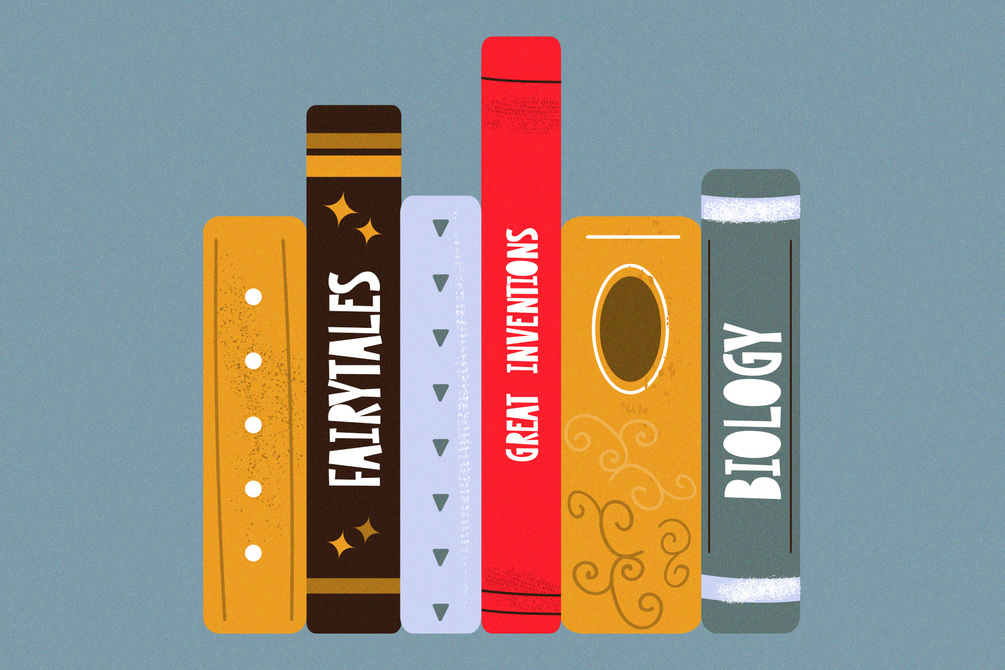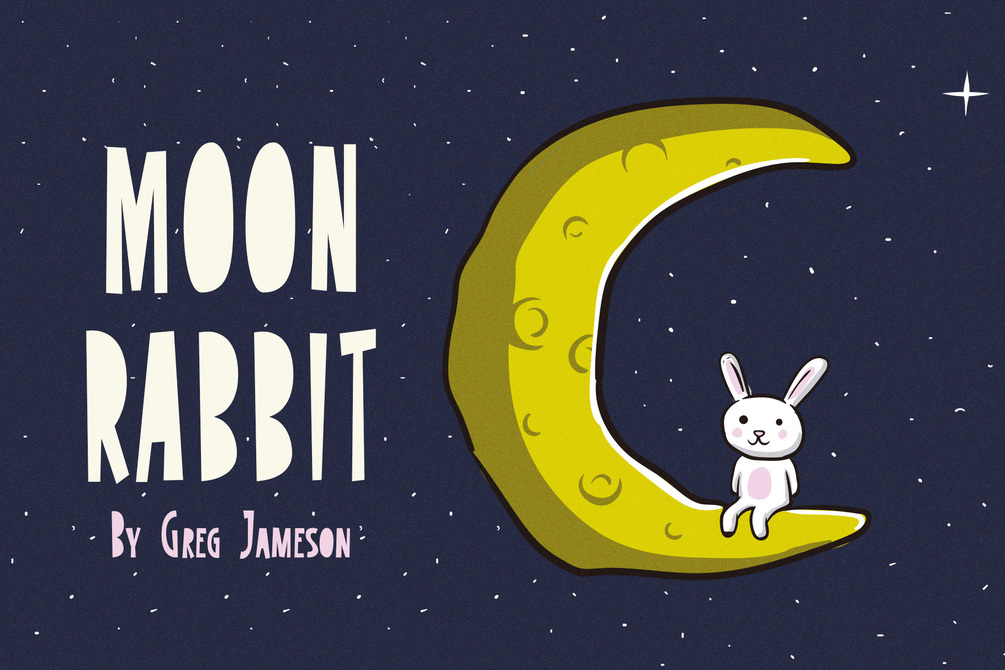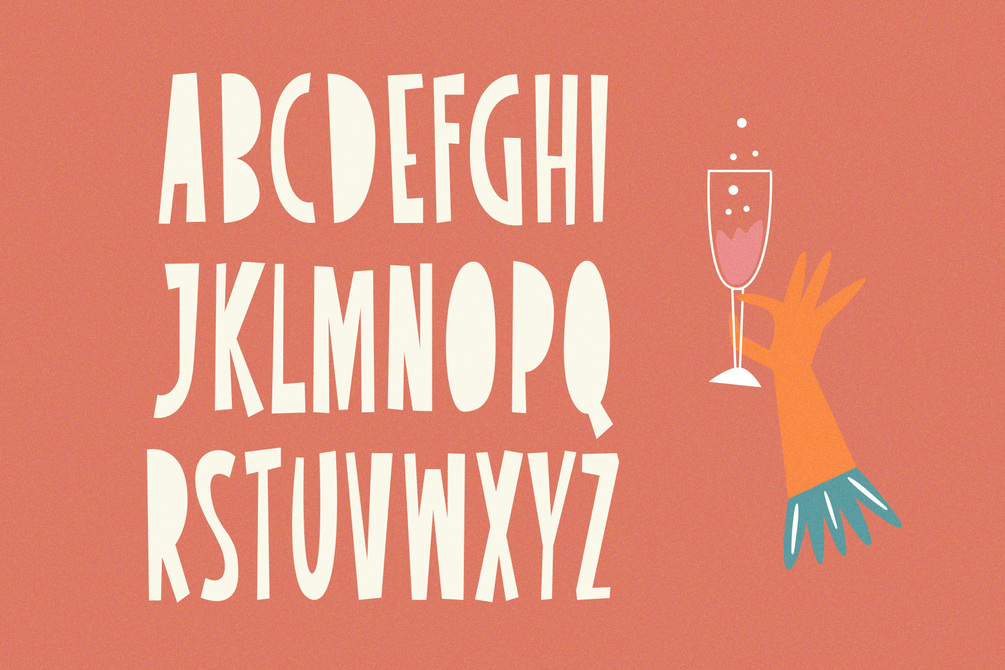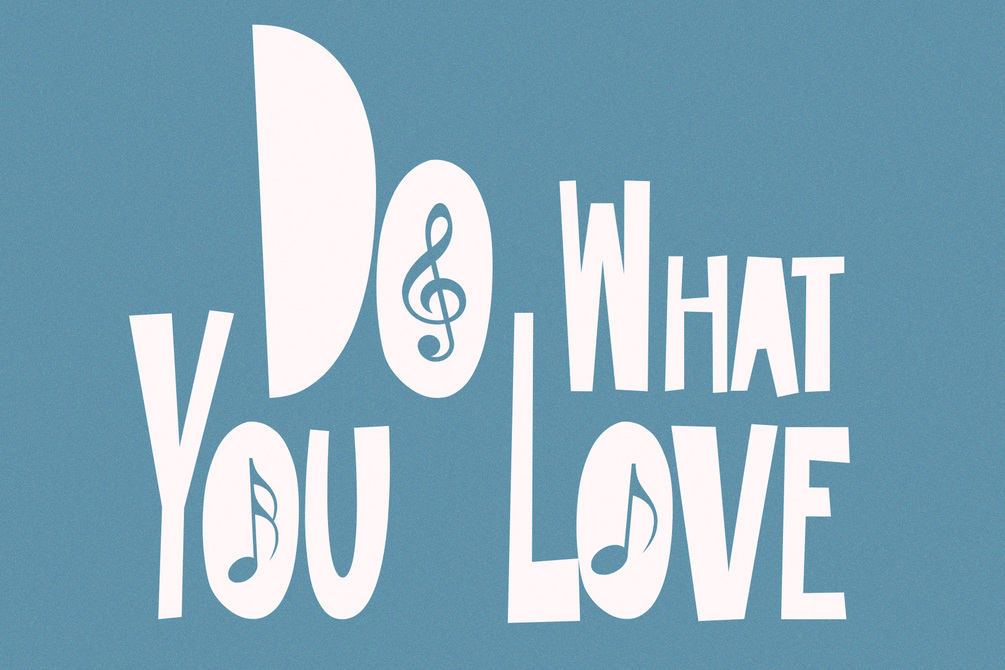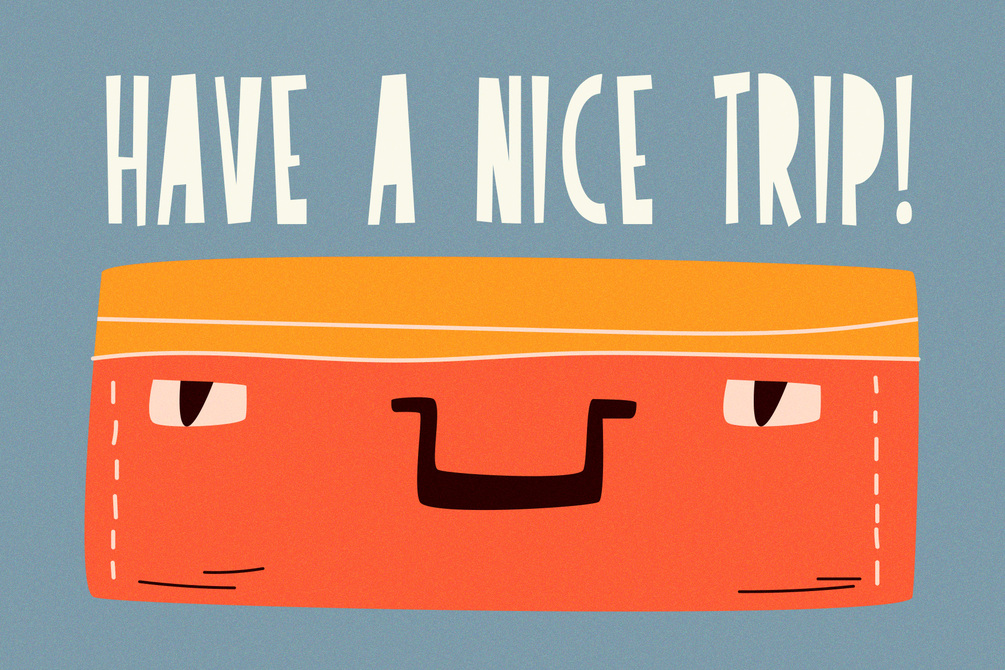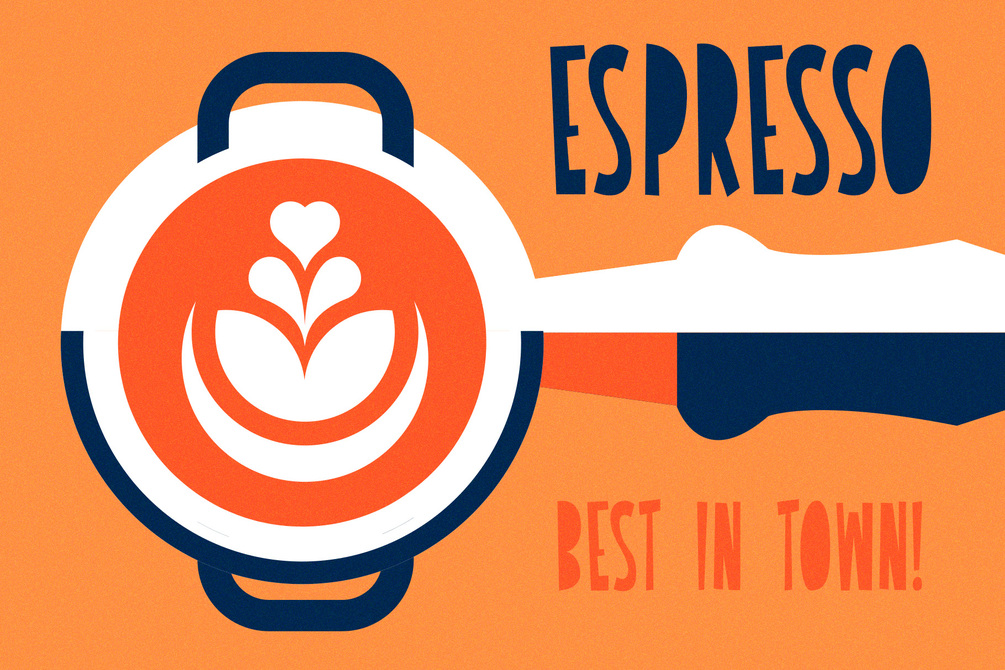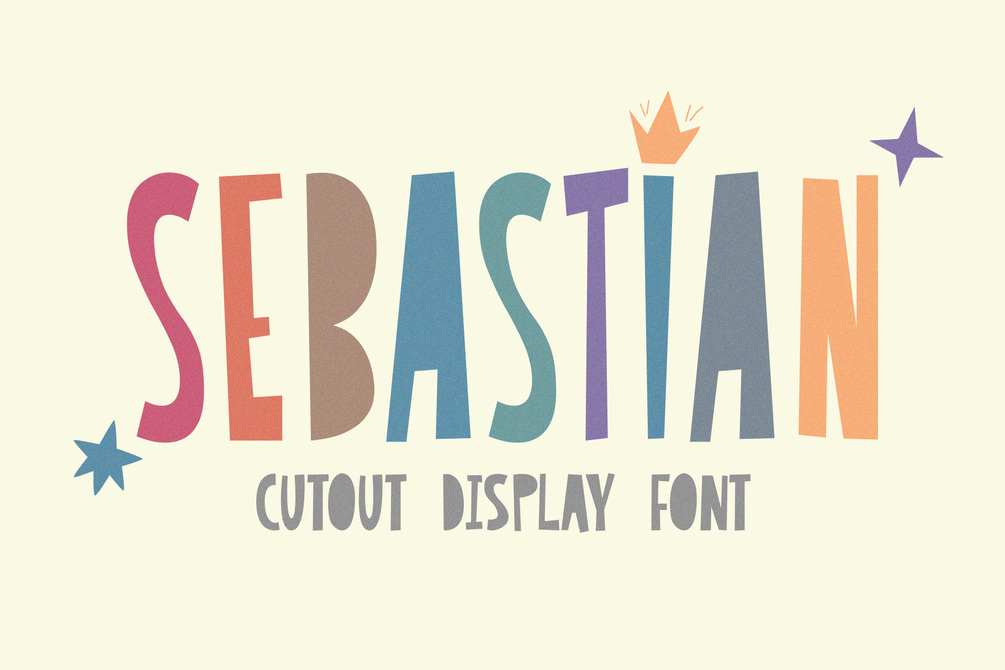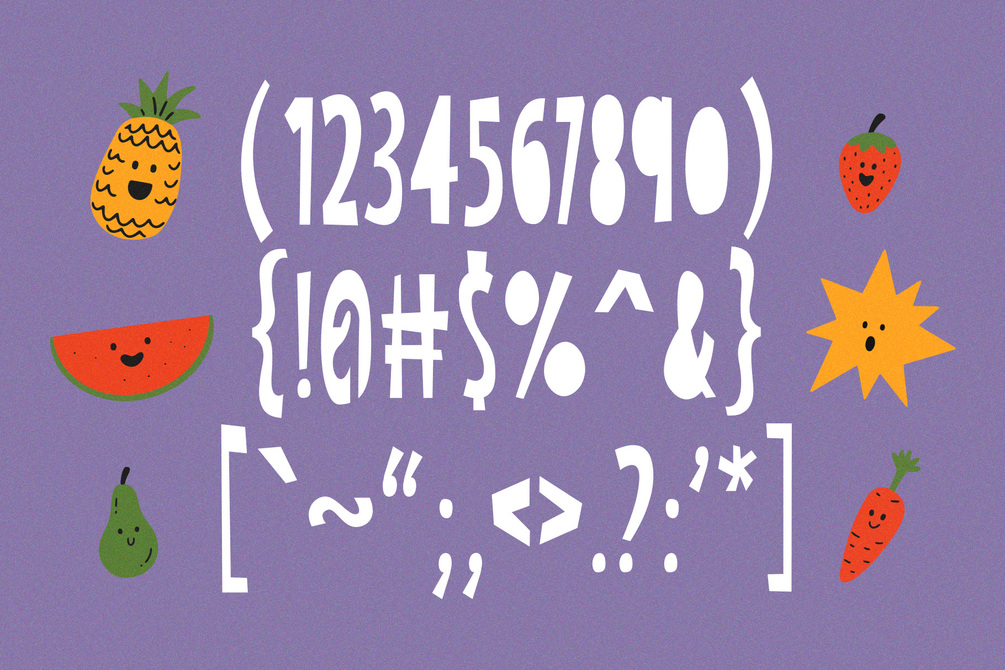
Sebastian - Cutout Typeface
Sebastian is a playful cutout font created for quotes, greeting cards, social media posts, branding, headers, posters, merchandise, and much more. If your project or design requires a light-hearted cutout typeface, then Sebastian is for you!